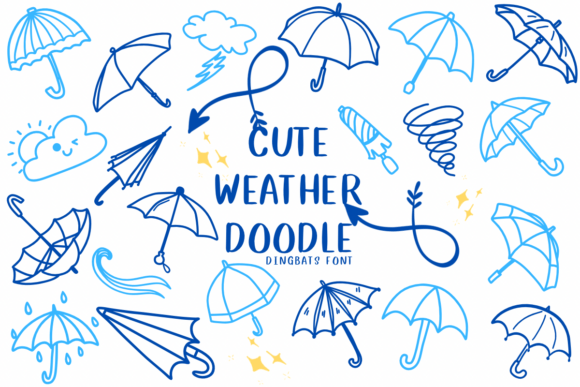
Cute Weather Doodle Font: Add a Whimsical Touch to Your Designs
Are you looking for a unique and playful way to add weather-themed illustrations to your designs? Look no further than the Cute Weather Doodle Font! This adorable dingbats font is packed with hand-drawn weather-themed illustrations like umbrellas, clouds, lightning, and sunshine, perfect for planners, educational materials, weather reports, and kid-friendly designs.
What is Cute Weather Doodle Font?
Cute Weather Doodle is a dingbats font that features a collection of hand-drawn weather-themed illustrations. Each letter of the alphabet corresponds to a unique doodle, allowing you to add a charming and whimsical touch to your projects. Whether you’re designing a planner, creating educational materials, or crafting a weather report, this font is sure to delight.
Key Features of Cute Weather Doodle Font
- Hand-drawn illustrations: Each doodle is carefully crafted by hand, giving the font a unique and personal touch.
- Weather-themed illustrations: The font features a range of weather-themed illustrations, including umbrellas, clouds, lightning, and sunshine.
- Easy to use: Simply type a letter to get a corresponding doodle, making it easy to add a whimsical touch to your designs.
- Perfect for planners and educational materials: The font is ideal for designers creating planners, educational materials, and other kid-friendly designs.
Uses for Cute Weather Doodle Font
The Cute Weather Doodle Font is versatile and can be used in a variety of design projects, including:
- Planners and organizers: Add a touch of whimsy to your planners and organizers with weather-themed doodles.
- Educational materials: Use the font to create engaging and interactive educational materials, such as worksheets and activity sheets.
- Weather reports: Add a playful touch to your weather reports with custom illustrations.
- Kid-friendly designs: The font is perfect for designing materials for kids, such as children’s books, activity sheets, and educational resources.
Benefits of Using Cute Weather Doodle Font
Using the Cute Weather Doodle Font offers a range of benefits, including:
- Unique and playful designs: The font allows you to create unique and playful designs that will stand out from the crowd.
- Time-saving: The font is easy to use and saves time, as you can simply type a letter to get a corresponding doodle.
- Customization options: The font offers a range of customization options, allowing you to tailor your designs to your needs.
- Kid-friendly: The font is perfect for designing materials for kids, making it a great choice for educational resources and children’s books.
Tips for Using Cute Weather Doodle Font
Here are some tips for getting the most out of the Cute Weather Doodle Font:
- Experiment with different letters: Try typing different letters to see the range of doodles available.
- Combine with other fonts: Combine the Cute Weather Doodle Font with other fonts to create unique and interesting designs.
- Use in digital and print designs: The font can be used in both digital and print designs, making it versatile and convenient.
- Have fun!: The most important thing is to have fun and be creative with the font!
The Cute Weather Doodle Font is a unique and playful dingbats font that is perfect for adding a whimsical touch to your designs. With its hand-drawn weather-themed illustrations, ease of use, and versatility, this font is ideal for designers creating planners, educational materials, weather reports, and kid-friendly designs. So why not give it a try and see how you can use it to add a touch of charm to your projects?
- What is a dingbats font?: A dingbats font is a type of font that features illustrations or symbols instead of letters.
- How do I use the Cute Weather Doodle Font?: Simply type a letter to get a corresponding doodle.